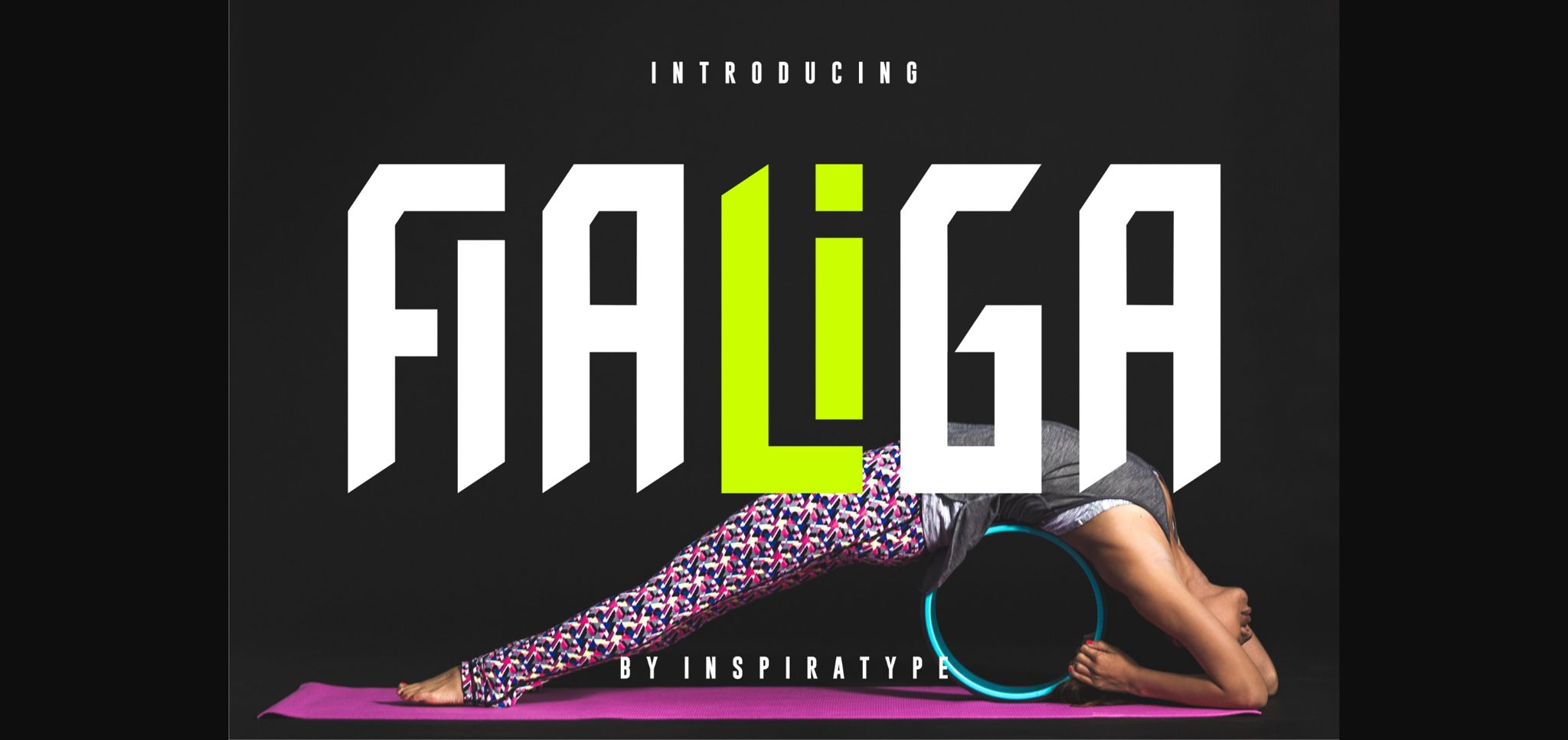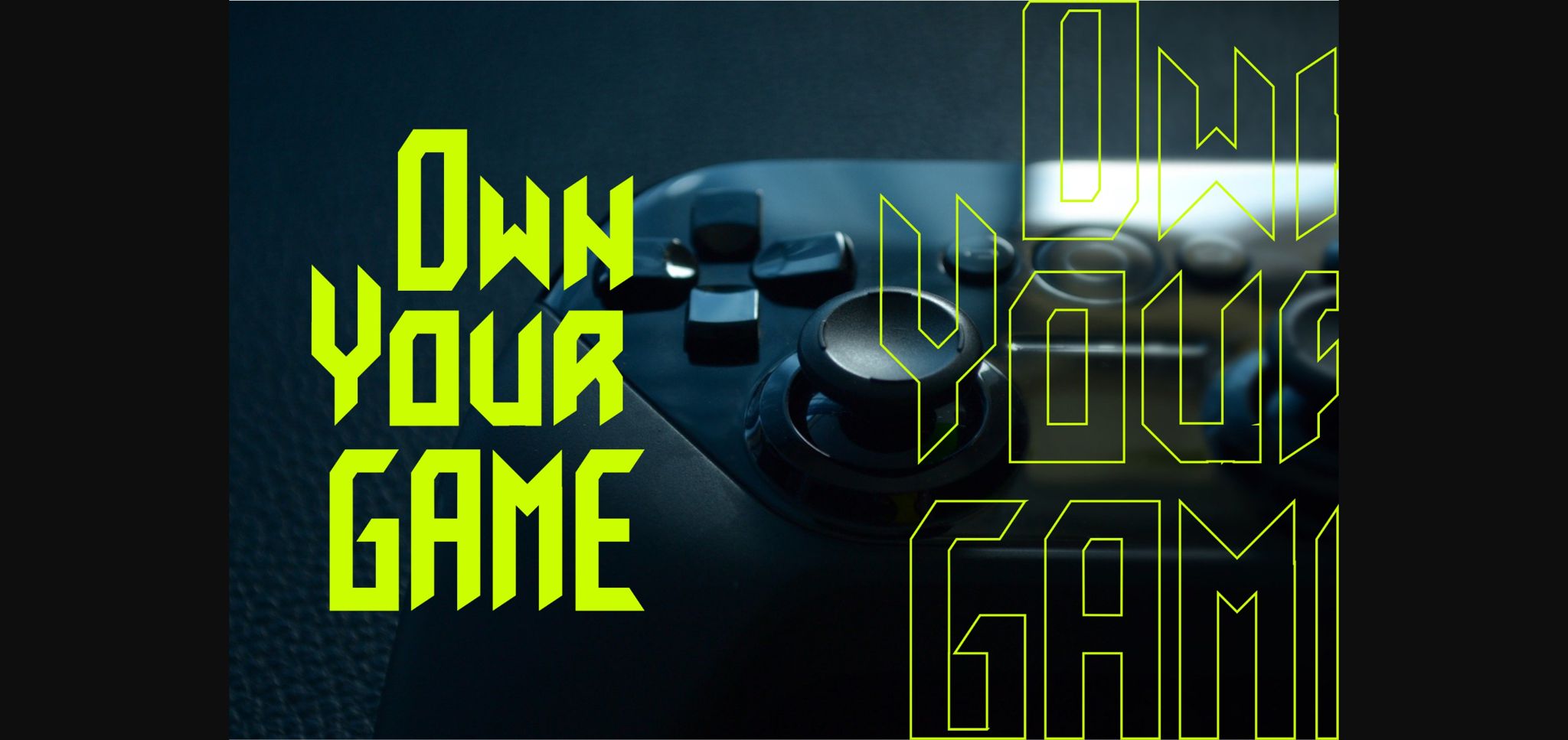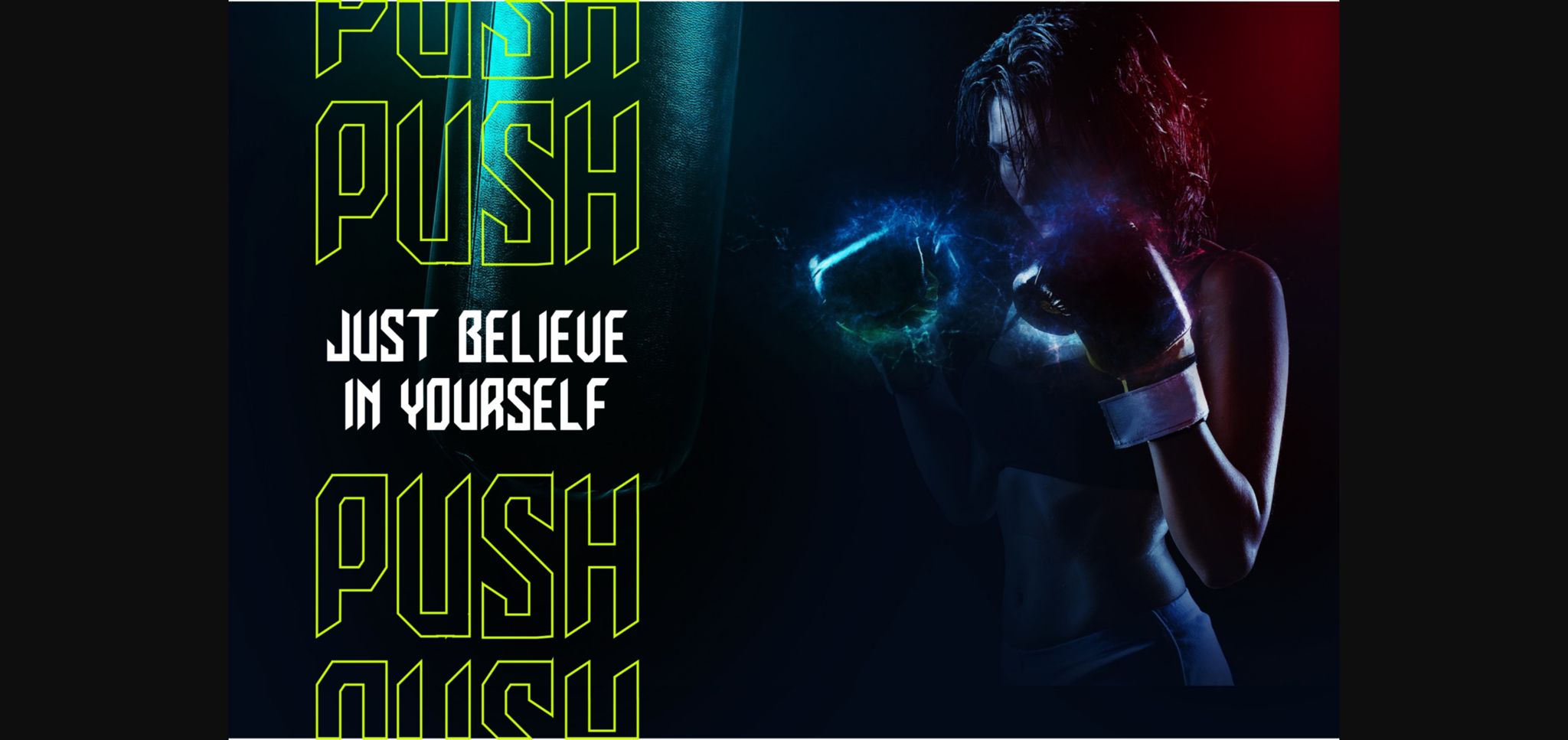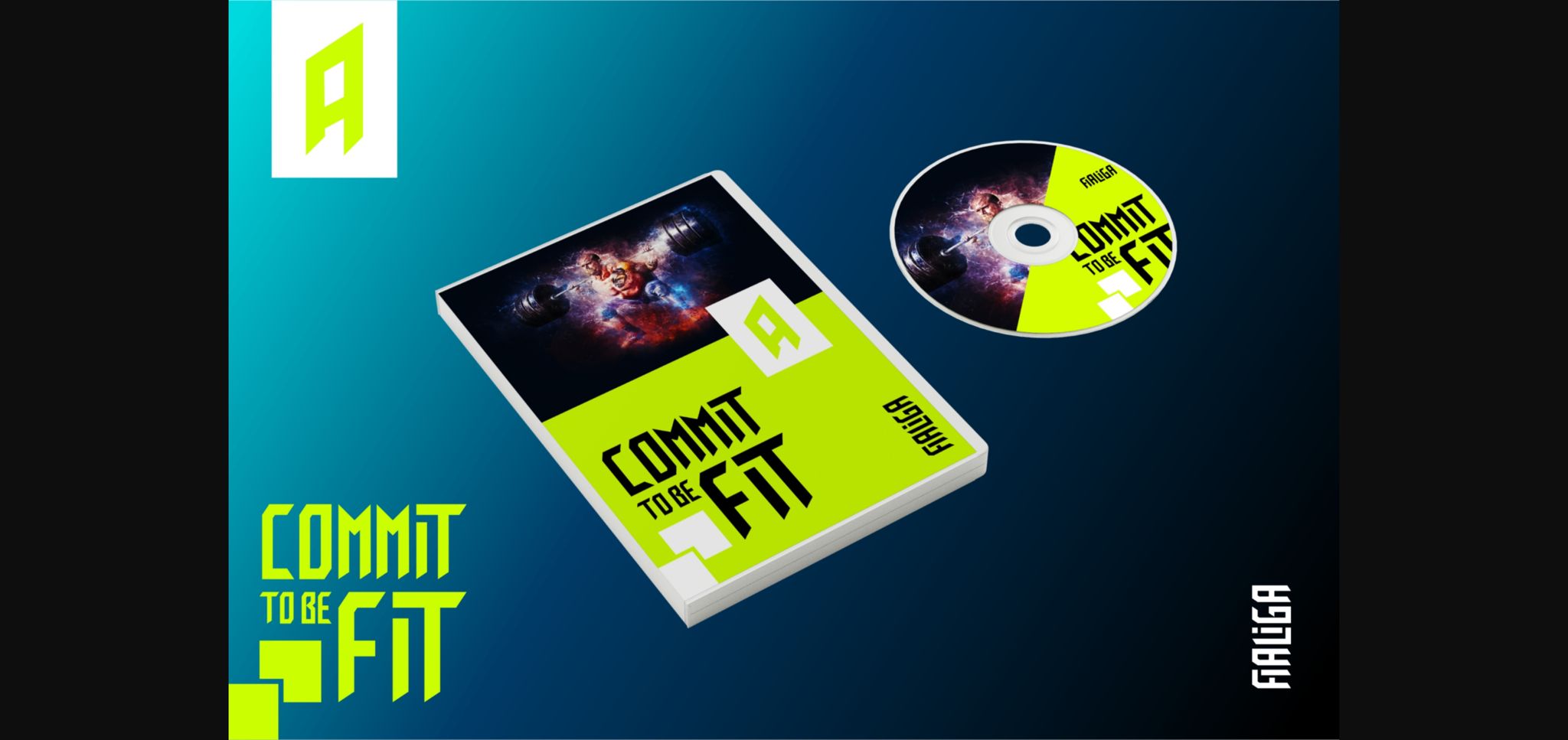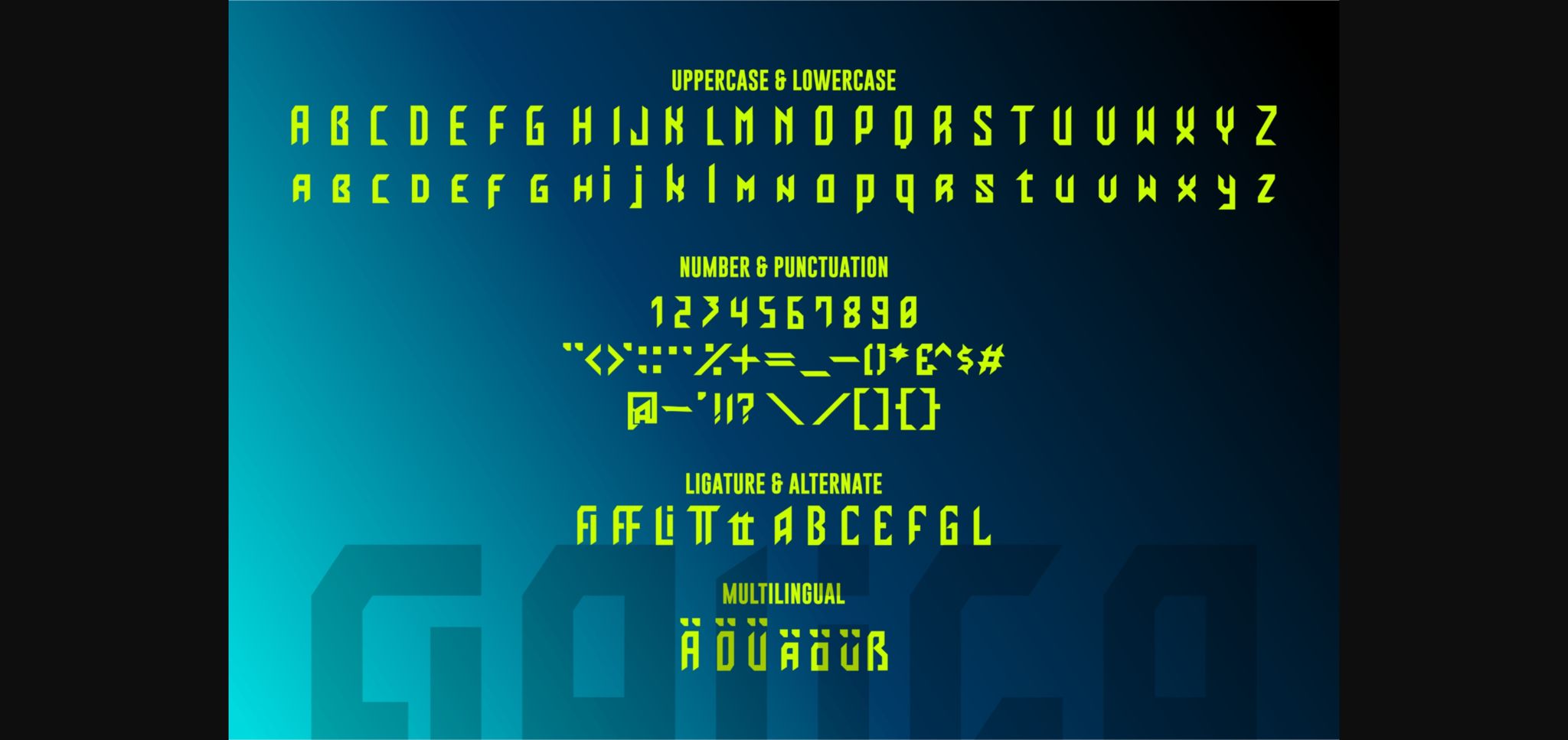
HomeSans Serif FontsFialiga Font Sans Serif Fonts Fialiga Font FacebookTwitterPinterestWhatsApp 1 of 7 ... Fialiga Font Poster 2... Fialiga Font Poster 3... Fialiga Font Poster 4... Fialiga Font Poster 5... Fialiga Font Poster 6... Fialiga Font Poster 7... About Fialiga Font Fialiga is a unique, contemporary sans serif font. Use it to add that special touch to any design idea you can think of! DOWNLOAD NOW People also explored Akurasha Font Happy Valentine Font Smile Glowing Font Website Font Rafika Happy Morning Font Girly Heart Font Unicorn Letter Font Masterday Font 206 0 TagsFialigaFialiga Font Previous articleRaidspell FontNext articleThenicle Extra Black Font LEAVE A REPLY Cancel reply Comment: Please enter your comment! Name:* Please enter your name here Email:* You have entered an incorrect email address! Please enter your email address here Website: Save my name, email, and website in this browser for the next time I comment. Personal Use Free Loving Personal Use Free Read more about this font Hunters Personal Use Free Read more about this font Alphakind Personal Use Free Read more about this font Arc Personal Use Free Read more about this font BLOG Free vs Paid Fonts: Why Investing in Premium Fonts Is Worth It Free vs Paid Fonts: Why Premium Fonts Are Worth It in 2025 The debate of free vs paid fonts continues in the design world. While... Best Fonts for T-Shirt Design – Top 2025 Picks To increase your work productivity, choose the most readable fonts. The 10 Best Handwriting Fonts to Add Personality to Your Designs